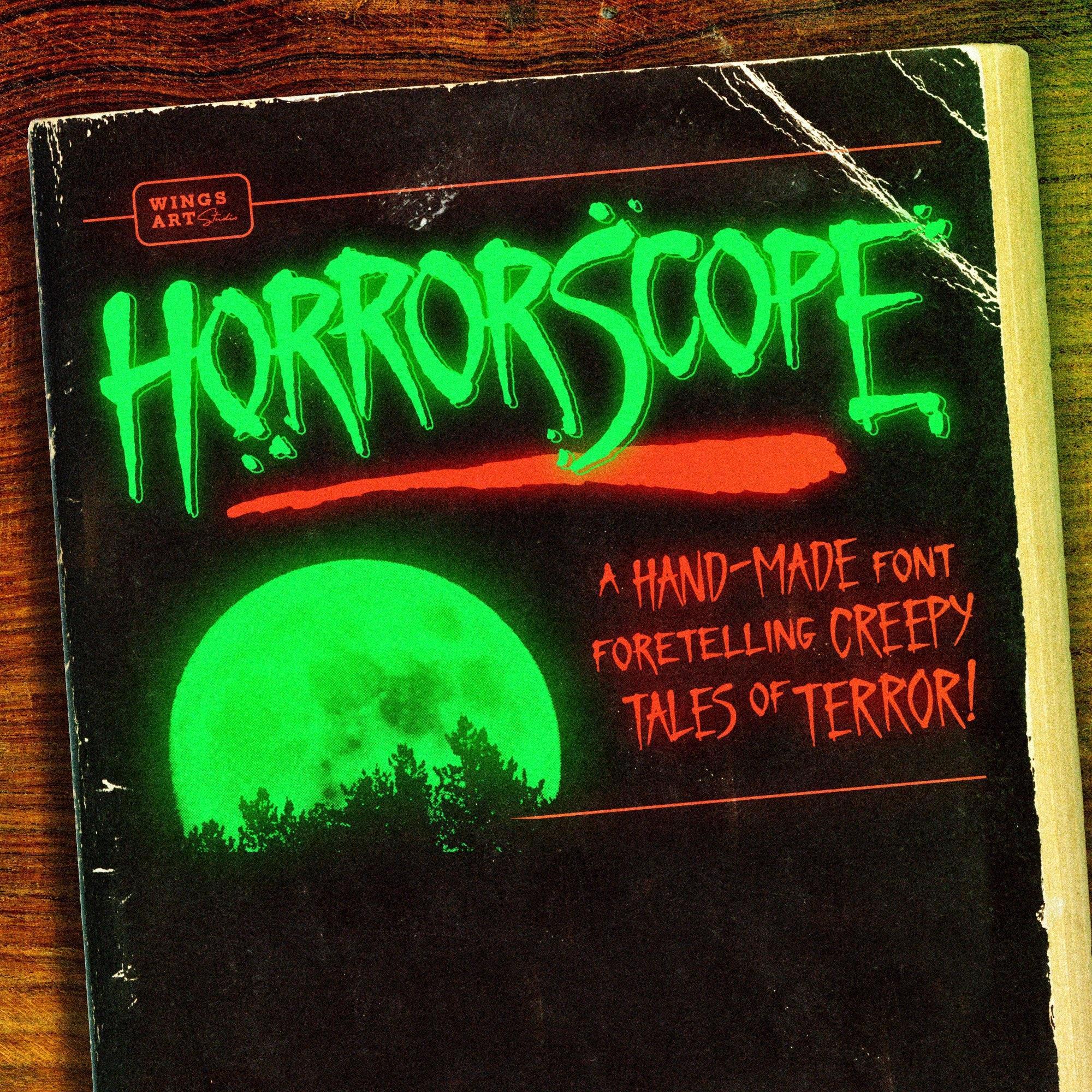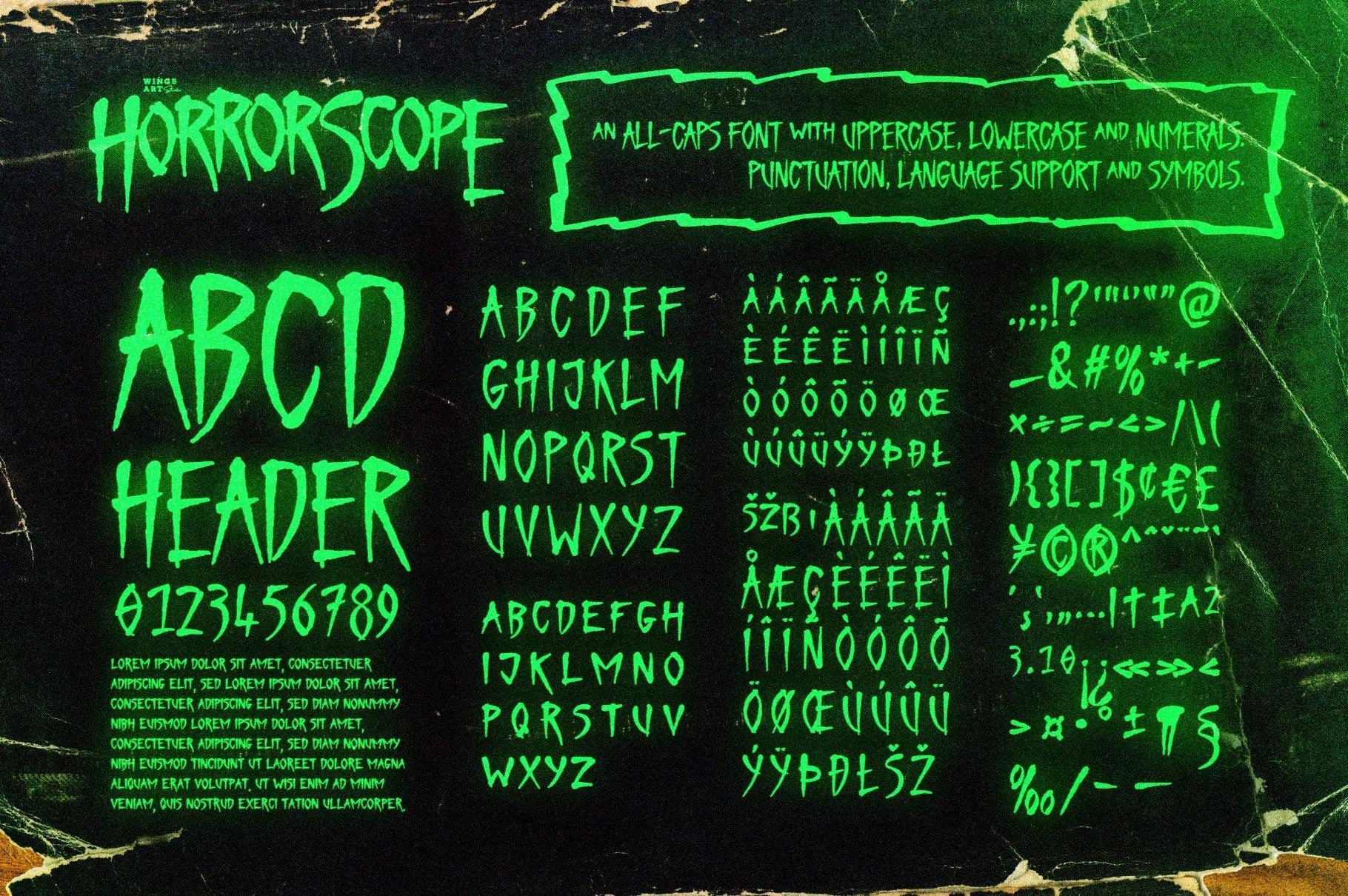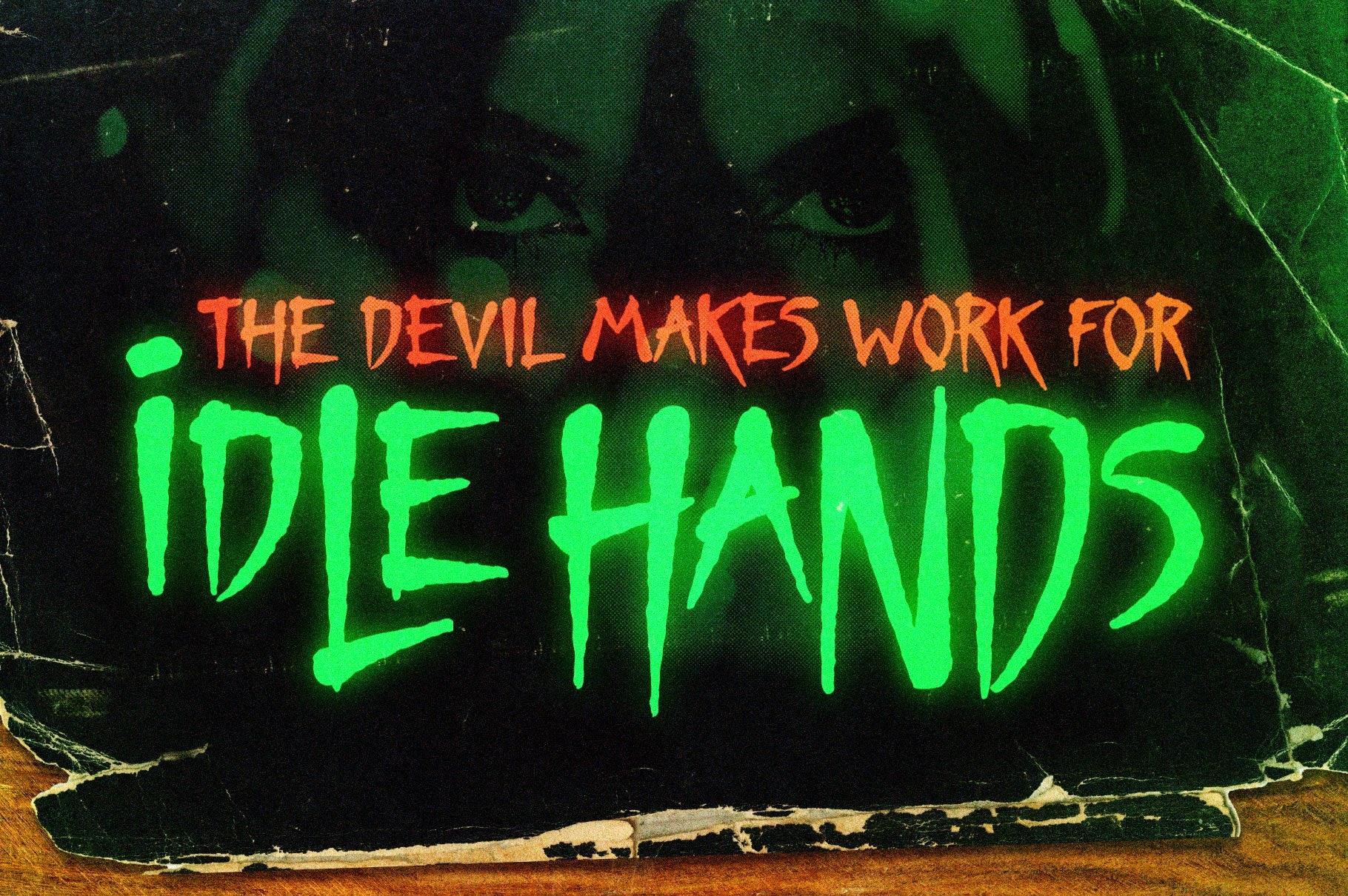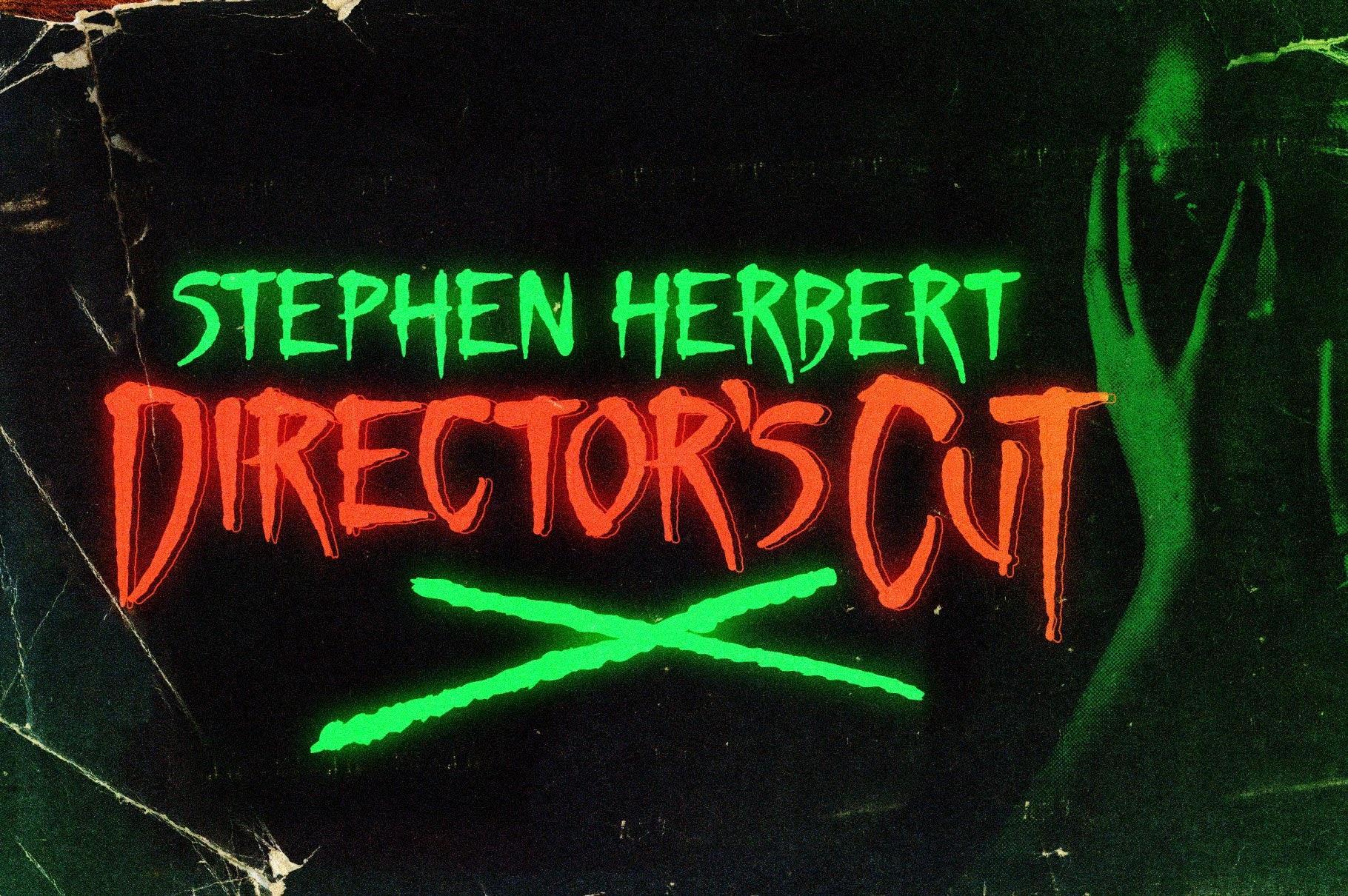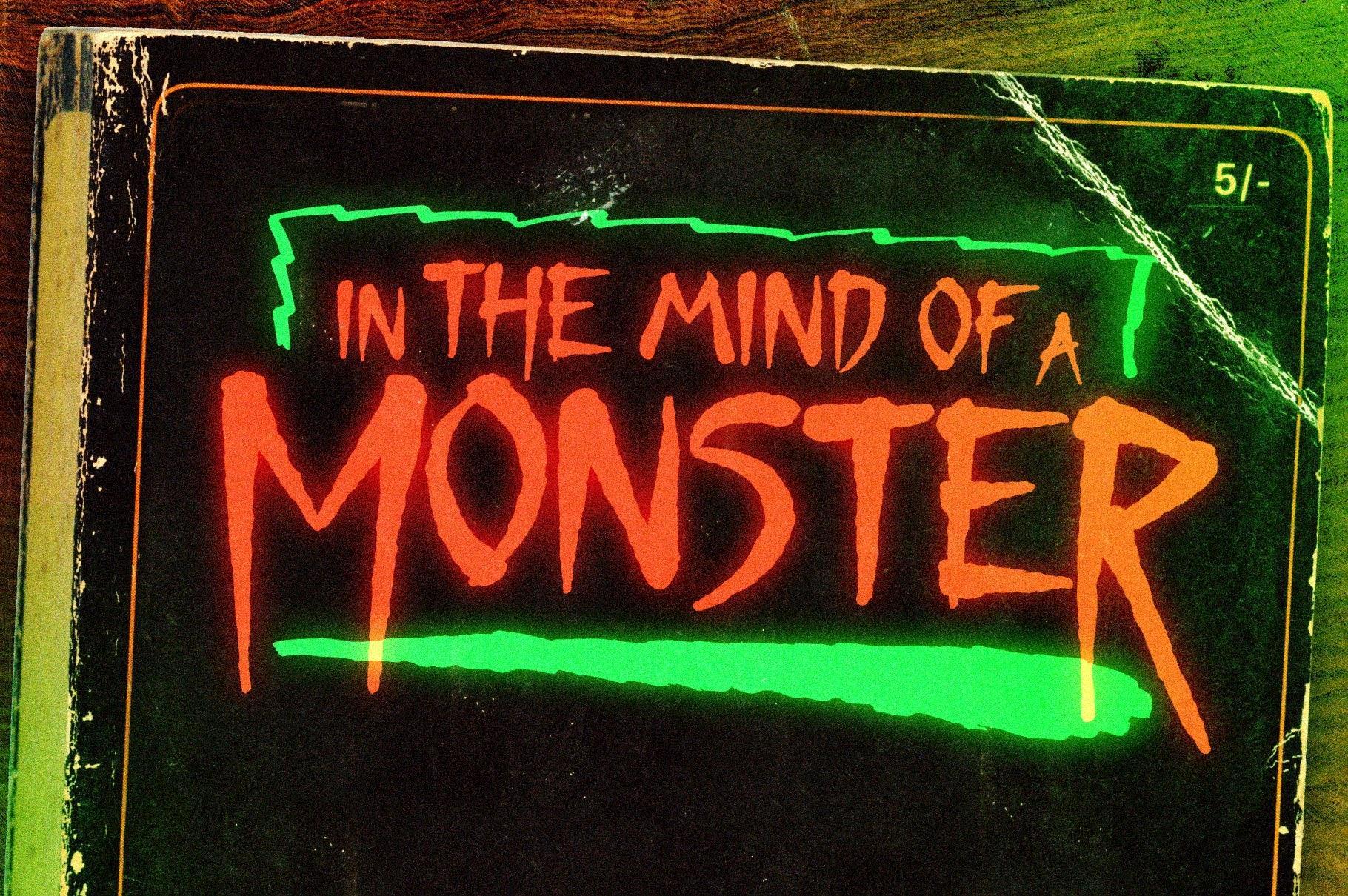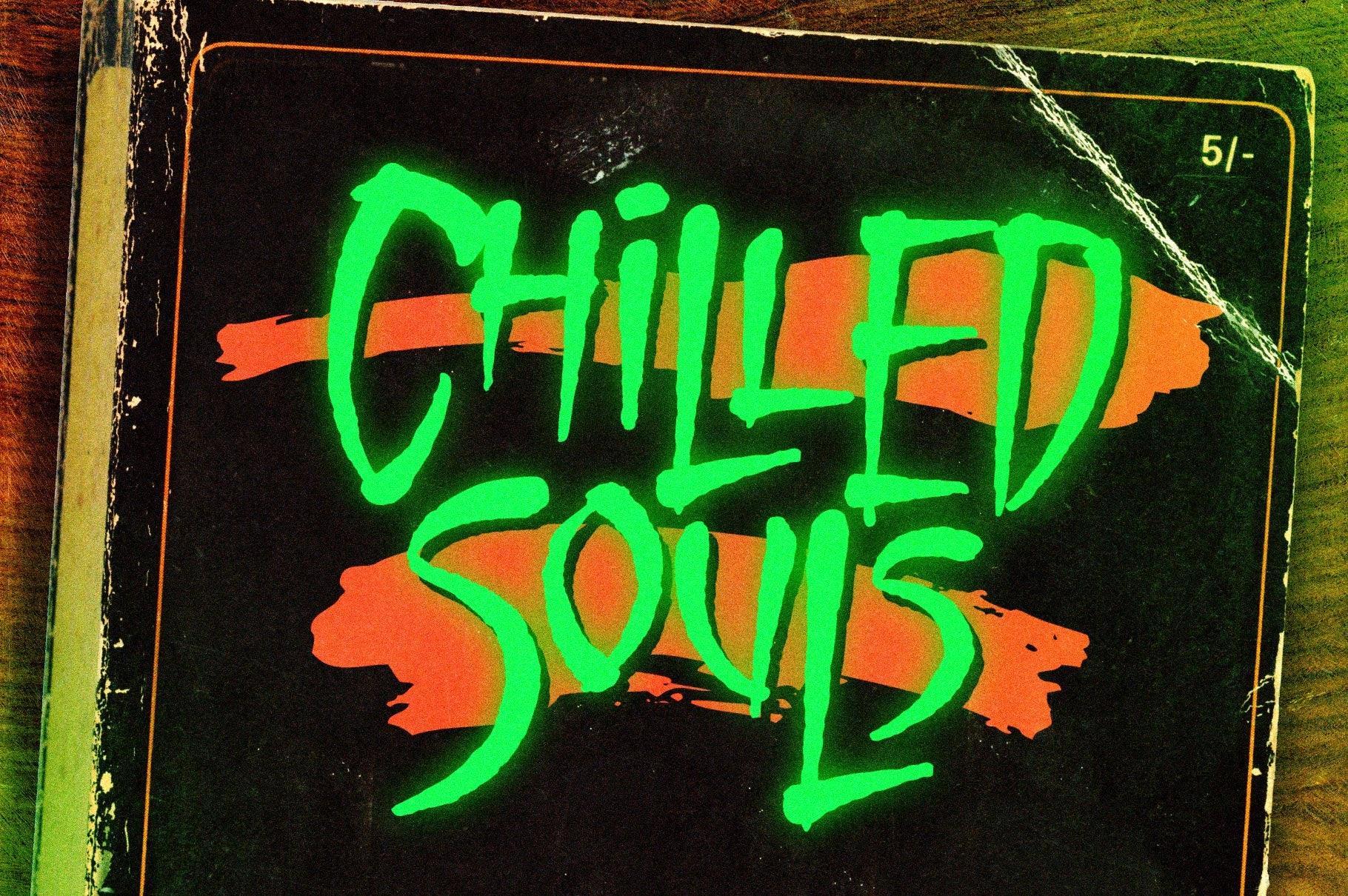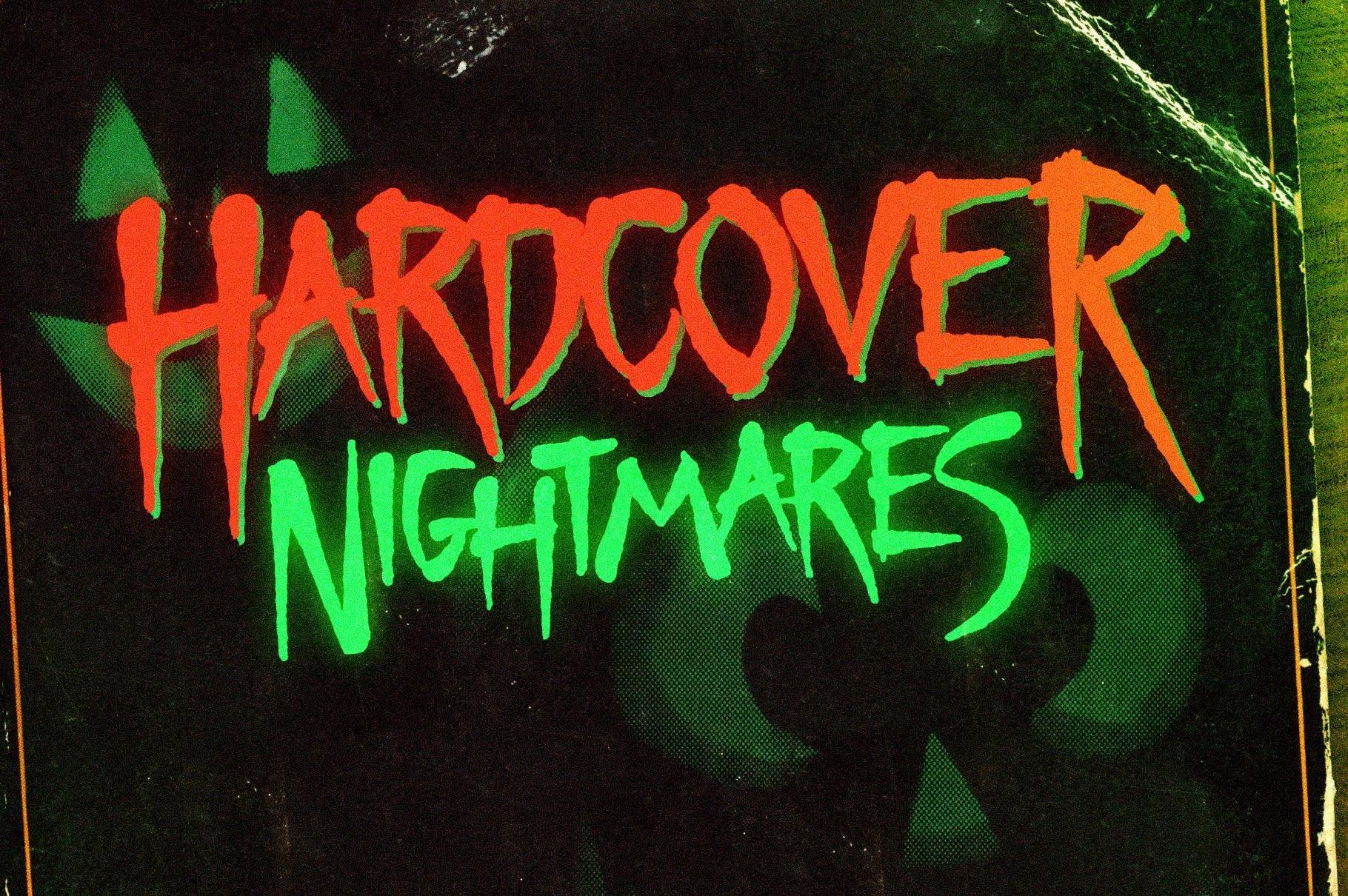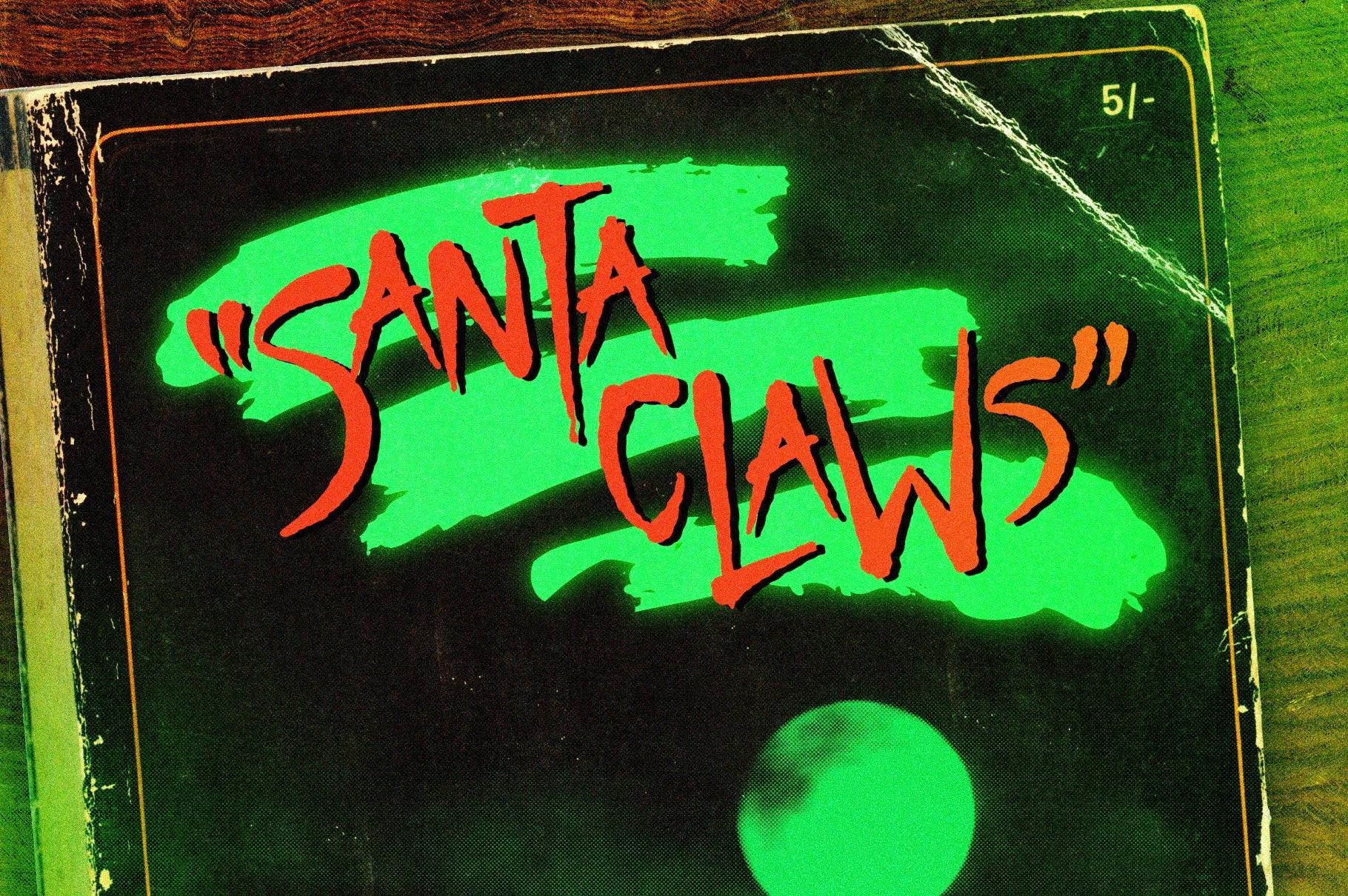
HorrorScope - A Hand-Made Horror Font Foretelling Creepy Tales of Terror!
HorrorScope is a hand-drawn, all-caps horror font featuring unique uppercase and lowercase characters, along with alternatives for common letters, punctuation, numerals, and additional elements like underlines and comic book-style boxes. This grungy typeface is inspired by retro horror novels and is designed to provide an authentic, hand-made look for various design projects.
Ideal for retro-inspired graphic design and horror-themed projects. Perfect for book covers, movie titles, album covers, and editorial layouts, ensuring an authentic, hand-made look that captures attention and evokes nostalgia.